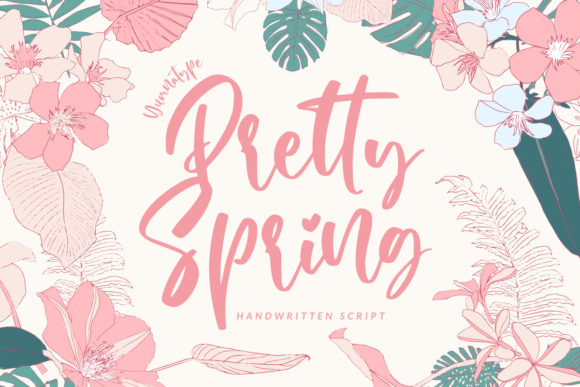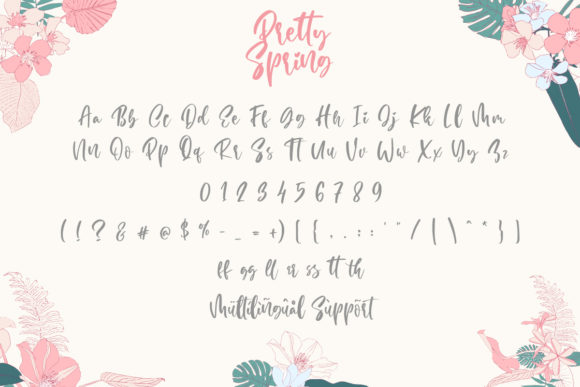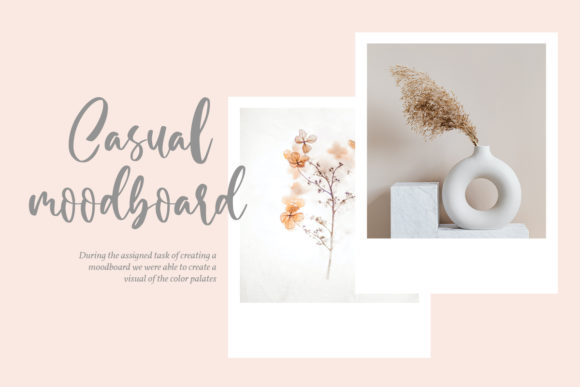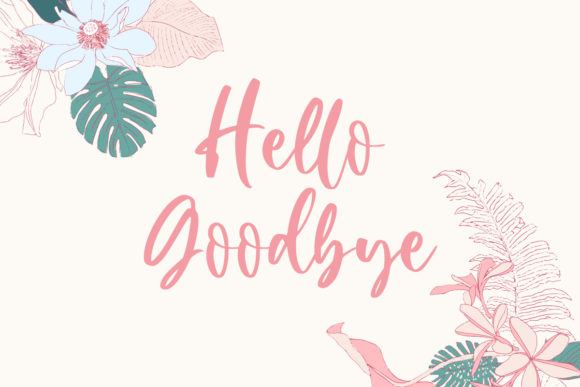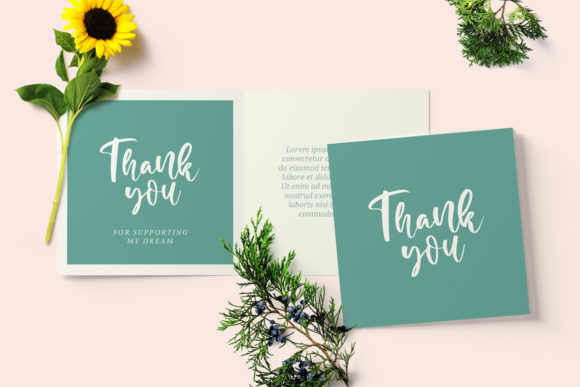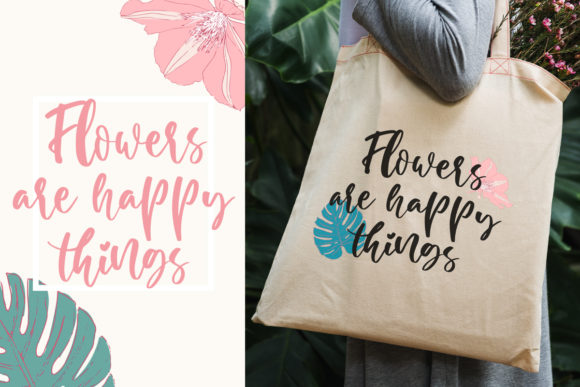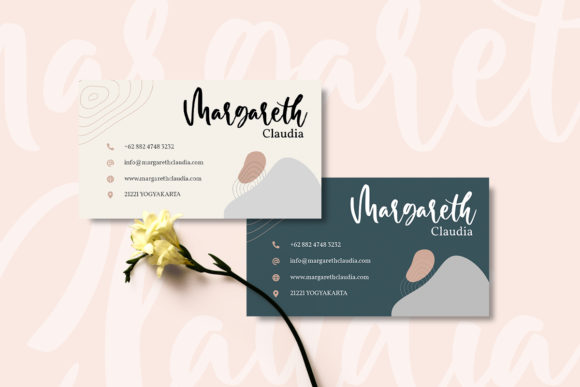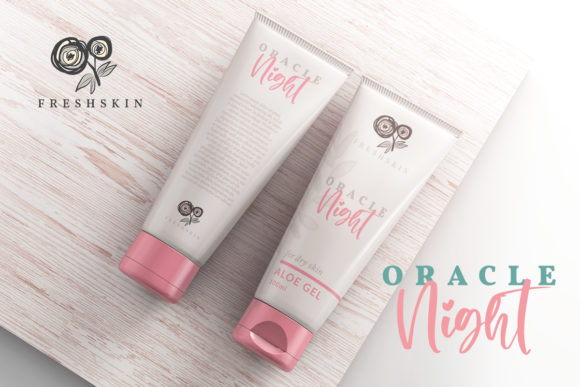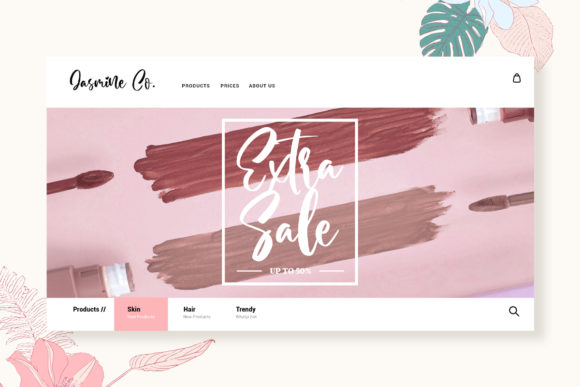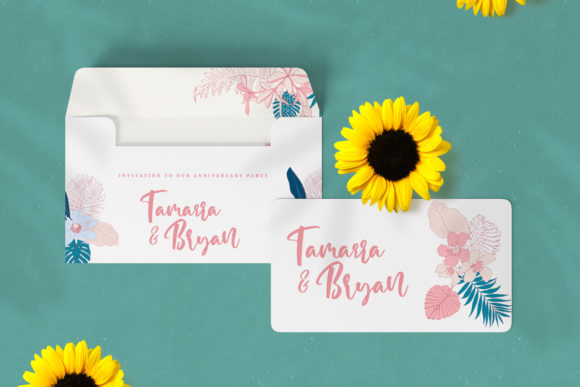
Pretty Spring Font
About Pretty Spring Font
Pretty Spring is a flowing handwritten font, described by an elegant touch, perfect for your favorite projects. Fall in love with its incredibly distinct and timeless style and use it to create spectacular designs!